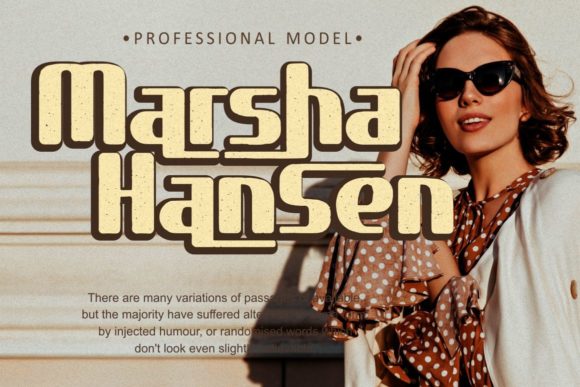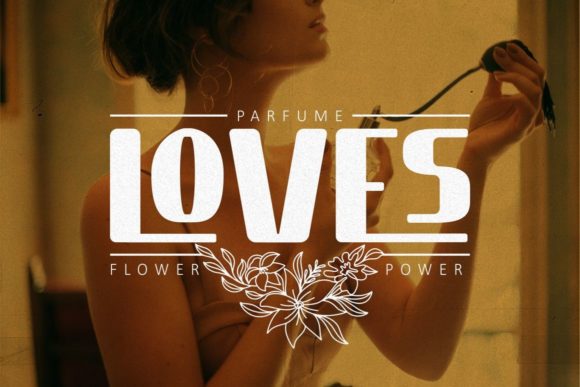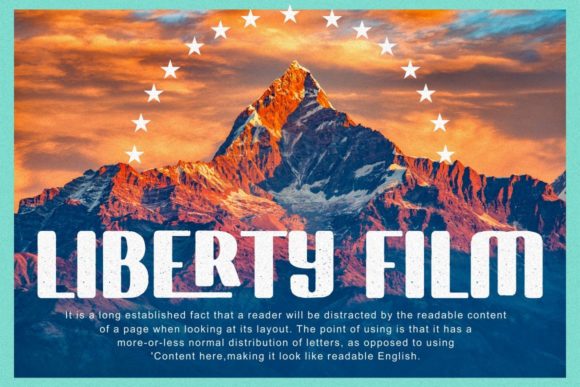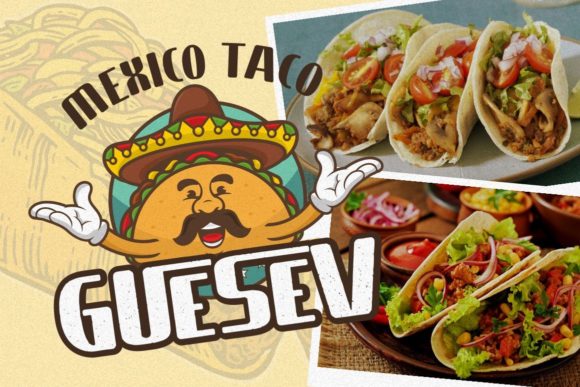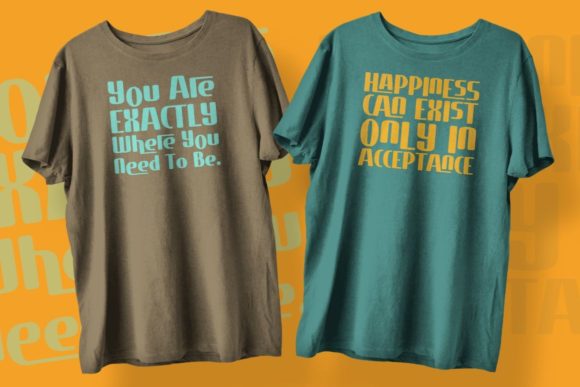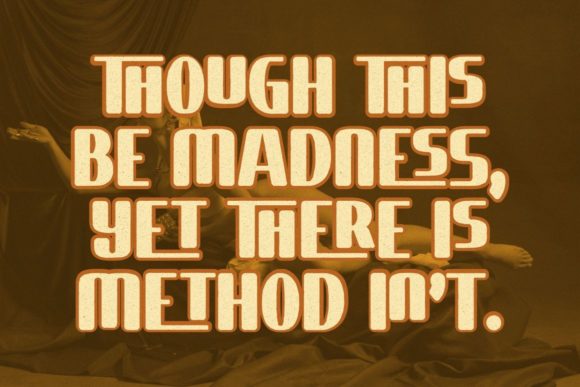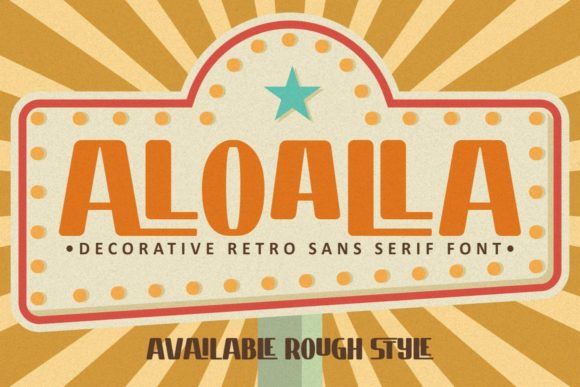
The Designer’s Delight: Unleashing the Power of Aloalla Font
I’ll never forget the struggle I faced while working on a vintage-themed project for a client. I had spent hours scouring the internet for the perfect font, only to come up empty-handed. That was until I stumbled upon Aloalla Font – a game-changing, vintage-styled, rough-textured display font that took my design to the next level. In this article, I’ll share my experience with Aloalla, its features, and how to make the most of it in your designs.
A Personal Review: What I Love About Aloalla
Aloalla Font has quickly become a staple in my design toolkit, and for good reason. Here are some of the things I love about it:
- ✨ Vintage charm: Aloalla’s unique texture and distressed look give my designs a nostalgic feel that’s hard to achieve with other fonts.
- ✅ PUA encoded: The font’s PUA encoding makes it easy to access a wide range of glyphs and ligatures, allowing me to experiment with different styles and combinations.
- 💡 High versatility: Whether I’m working on a logo, a poster, or a social media graphic, Aloalla adapts seamlessly to different design contexts.
While Aloalla is an excellent font, it’s not without its quirks. Here are a few things to keep in mind:
- ⚠️ Legibility at small sizes: Like many display fonts, Aloalla can be challenging to read at small sizes. It’s best used for headlines, titles, or short phrases.
- 🤔 Pairing with other fonts: Due to its distinctive texture and style, Aloalla can be tricky to pair with other fonts. Experiment with different combinations to find the perfect match.
The Story Behind Aloalla
Aloalla was designed with the intention of capturing the essence of vintage typography. Its creator drew inspiration from classic signs, posters, and logos from the early 20th century, aiming to evoke a sense of nostalgia and timelessness. The result is a font that’s both nostalgic and versatile, perfect for a wide range of design projects.
| What is PUA encoding, and how does it benefit Aloalla? | PUA (Private Use Area) encoding allows for a wide range of glyphs and ligatures to be accessed easily, making it simple to experiment with different styles and combinations. |
| Is Aloalla suitable for body text? | No, due to its distressed texture and display nature, Aloalla is best used for headlines, titles, or short phrases. |